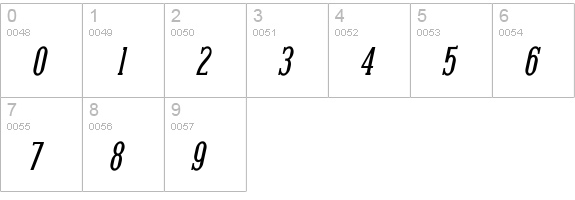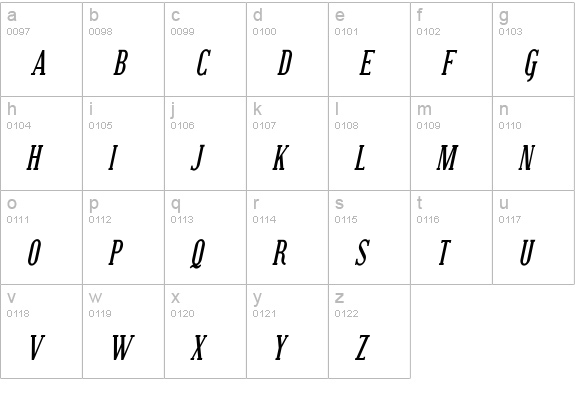
Covington SC Cond Bold Italic is a strong, high-contrast, condensed-width, italic variant in the Covington typeface family \xE2\x80\x94 well suited to headlines, attention-grabbing titles, and strong calls-to-action.
Covington SC Cond Bold Italic font exudes a sense of sophistication and elegance with its sleek and modern design. The bold and italicized style adds a touch of flair, making it perfect for conveying a bold statement or heading in any design project. The condensed form of the font allows for efficient use of space without compromising on readability. What's even better is that Covington SC Cond Bold Italic font is available for free download at FontsMarket.com. This means you can easily access this stylish and versatile font to elevate your designs without any cost. Whether you're working on a professional project or a personal creative endeavor, Covington SC Cond Bold Italic font will surely make a bold impact. Download it today and add a touch of sophistication to your designs.